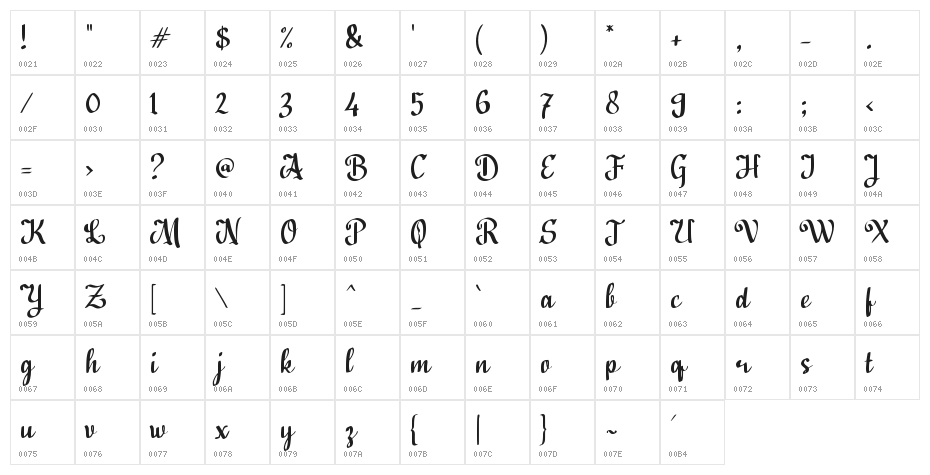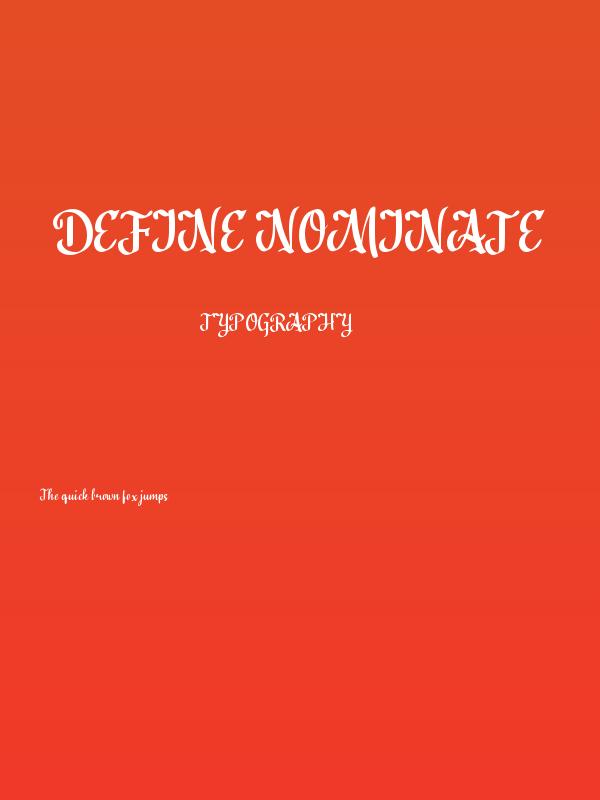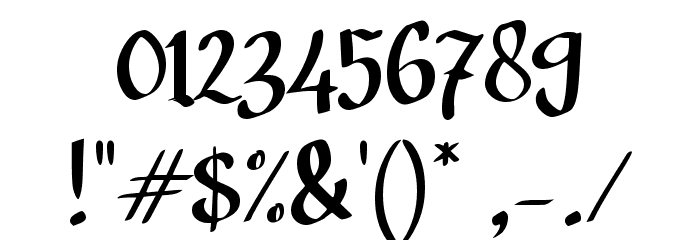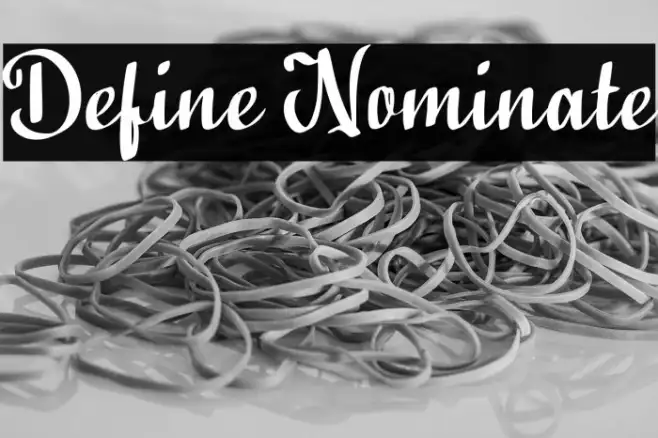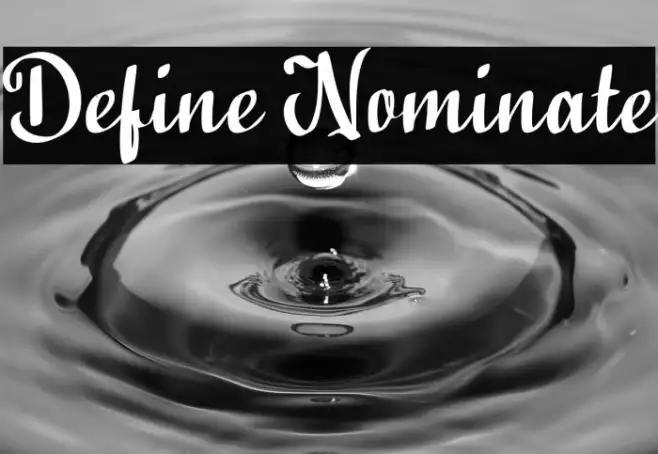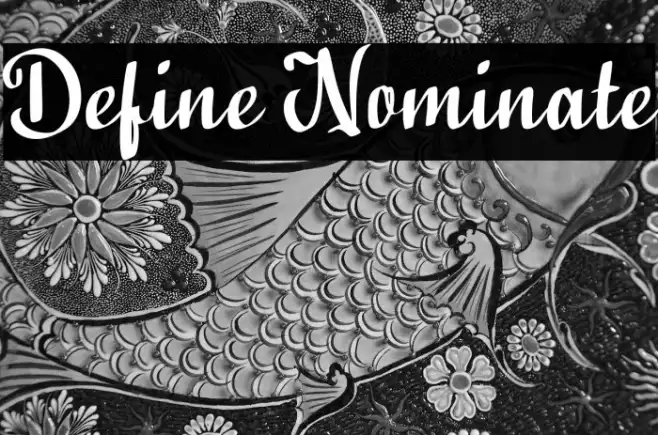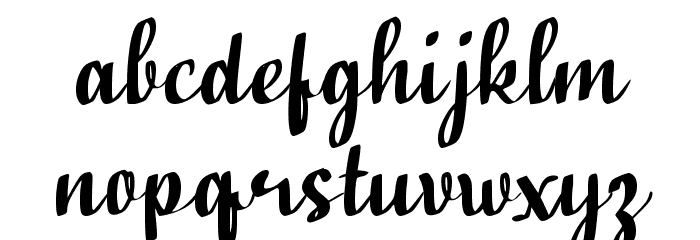
Define Nominate Font
Define Nominate Description
This font exudes a lively and dynamic character with its bold, flowing script style. The uppercase letters are elegantly crafted with sweeping curves and flourishes, giving a sense of movement and grace. The lowercase letters maintain a consistent style, with a slightly more relaxed and informal appearance, yet they complement the uppercase perfectly. The numerals are bold and clear, ensuring readability while maintaining the font's overall aesthetic. Special characters are thoughtfully designed to match the script's fluidity, making them suitable for various creative applications. This font is ideal for projects that require a touch of elegance and personality.
| Use Case | Logos, Headlines, Invitations |
| Proposed Projects | Ideal for wedding invitations, branding, greeting cards, and decorative signage. |